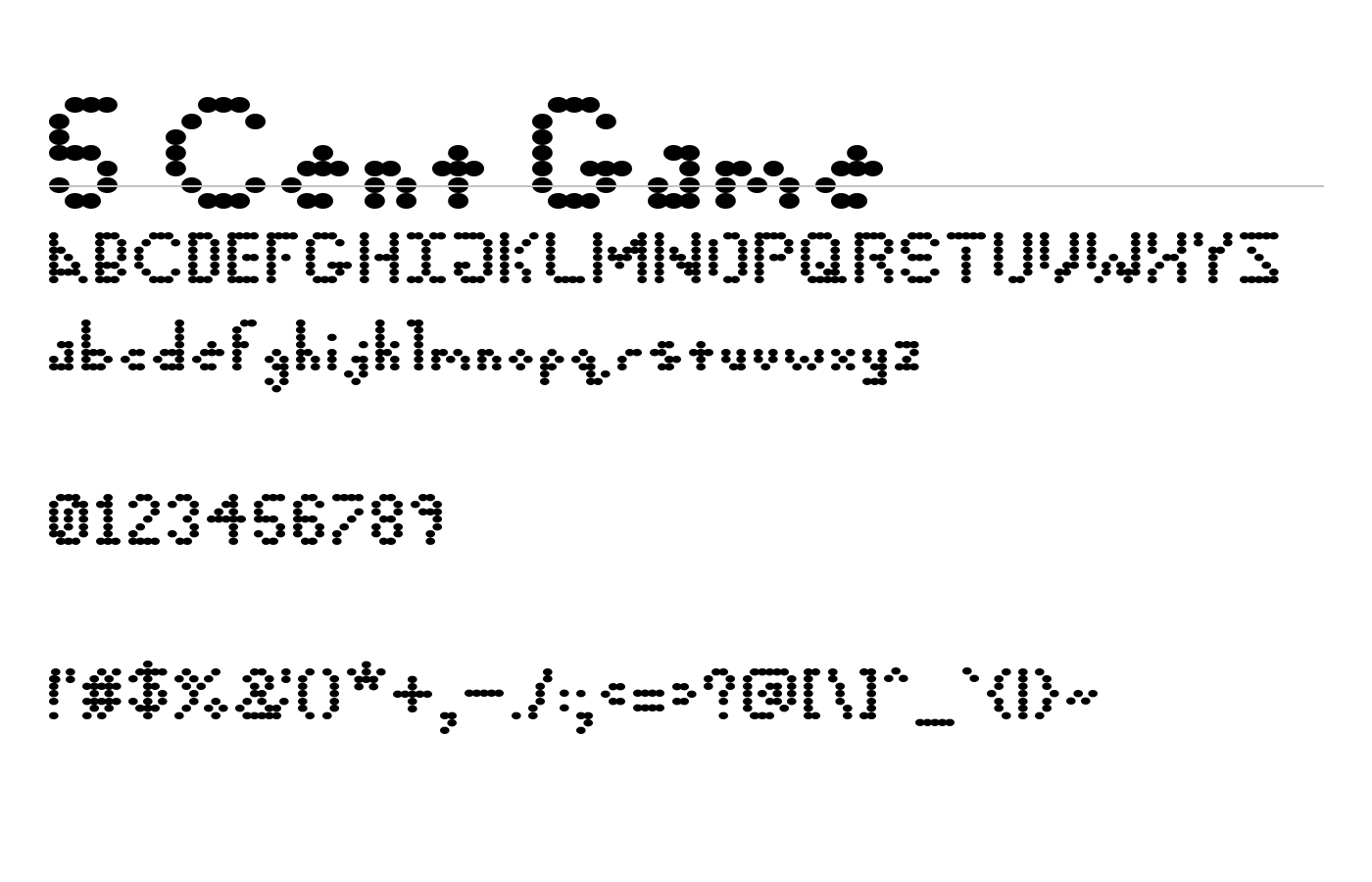
The 5 Cent Game font is a playful, pixelated sans serif typeface composed of small circular dots, giving it a retro digital or arcade game feel. Its uniform weight and simple geometric shapes create a modern, techy vibe that works well for fun, informal designs such as gaming logos, digital interfaces, or children's products. This font stands out best at larger sizes or on screen where its dotted texture can shine as a unique stylistic element.
5 Cent Game Font
About 5 Cent Game Font
| Font family | 5 Cent Game Font |
| Designer | Sidneys1 |